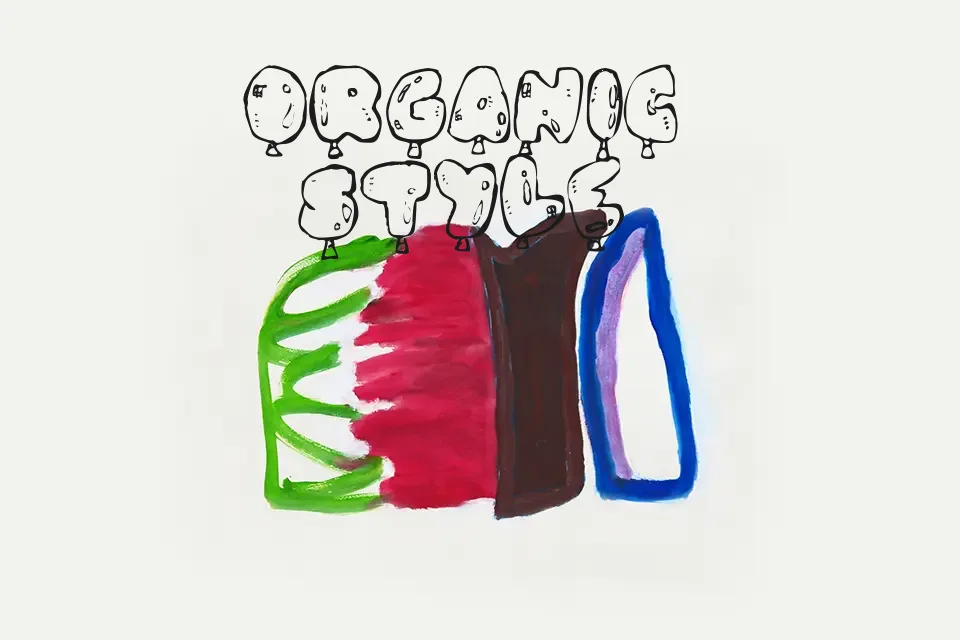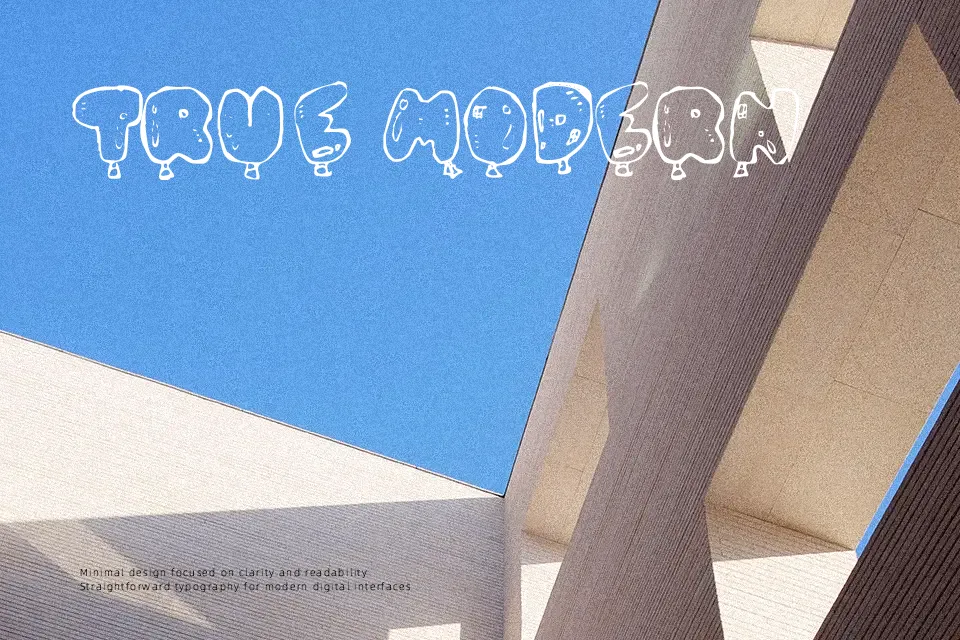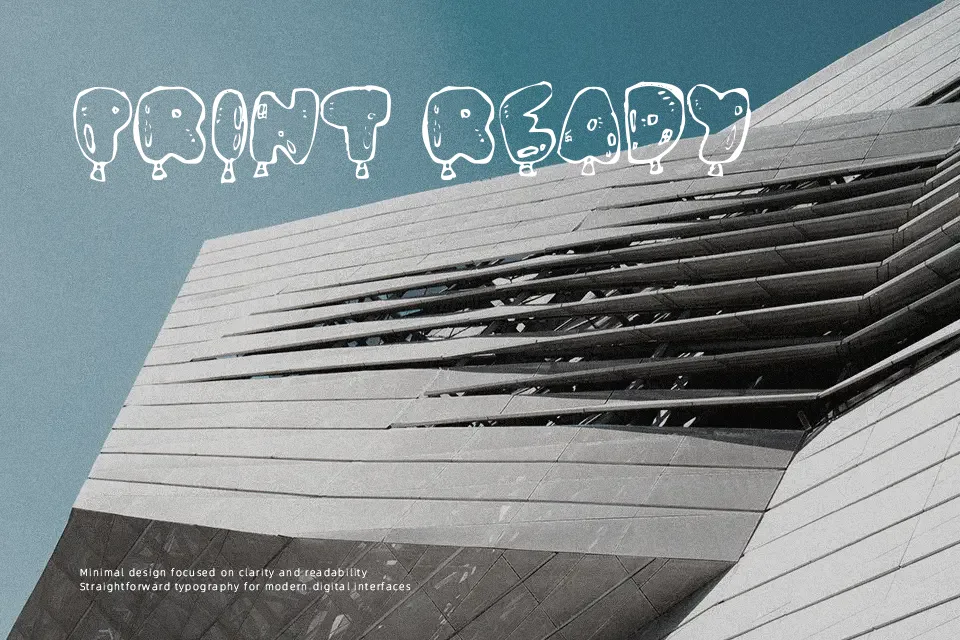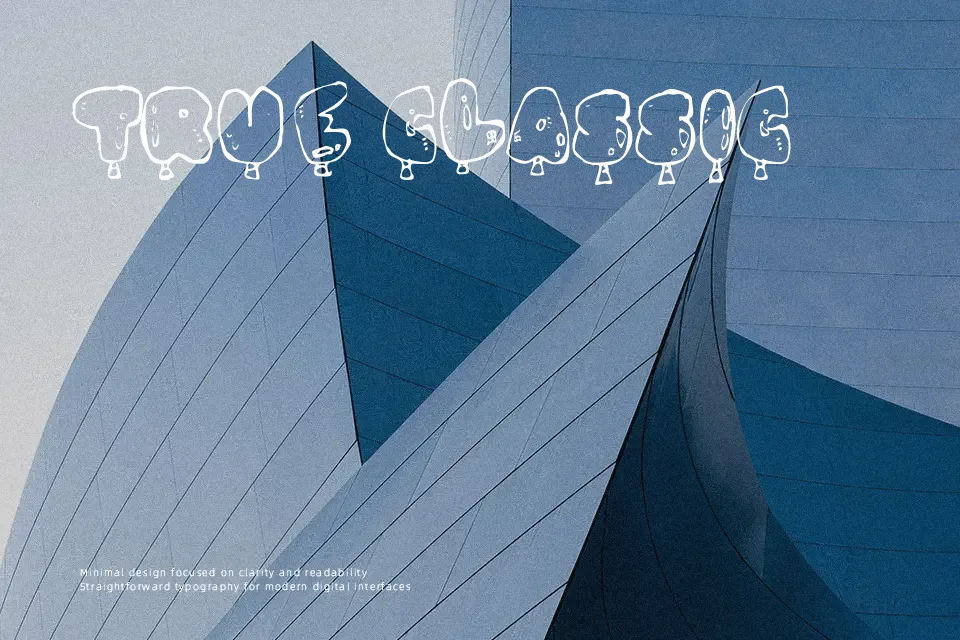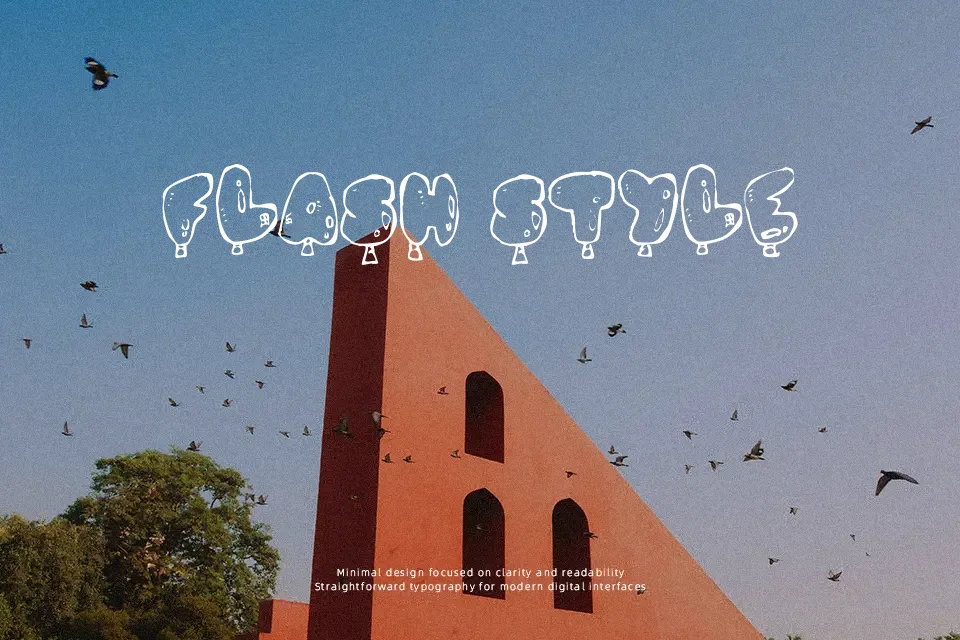
Oh Balloney Font
Oh Balloney Font uses soft, balloon-like forms with thick, rounded strokes and an uneven hand-drawn rhythm. The broad curves and inflated proportions give uppercase and lowercase characters a lively cartoon presence, while the generous internal spaces keep individual letters recognizable in large settings. Its visual weight works well for children’s graphics, celebratory signs, and playful product labels. The rounded shapes maintain clarity in short headlines, especially when given room to breathe. However, the decorative proportions become less efficient in small sizes, and extended passages can feel slow to read.
Best For: children’s party invitations,playful product packaging,cartoon poster headlines,kids’ activity graphics
Not Ideal For: long paragraph text,small interface labels,corporate reports,technical manuals
Perfect for headline, kids, and packaging, with a bubble and cartoon style.